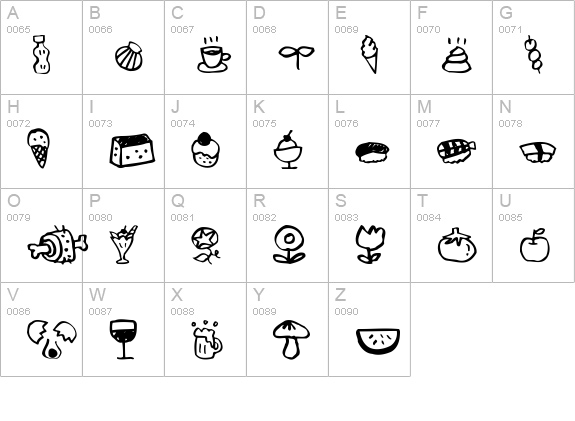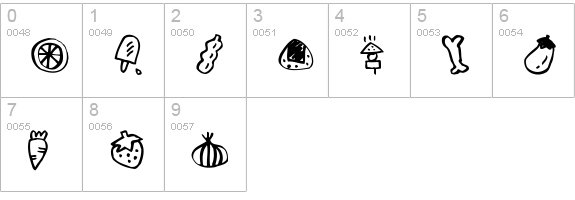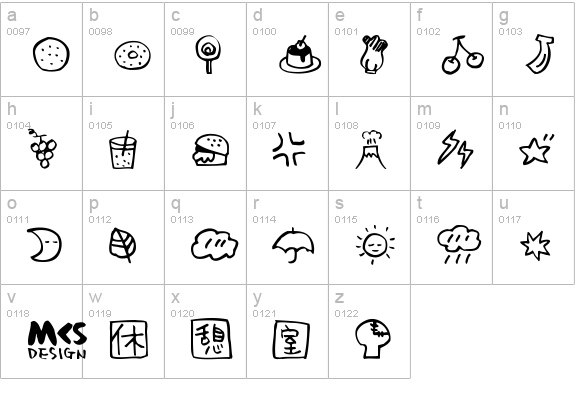
Holiday-illustB Font Details
Holiday-illustB font is a charming and playful typeface that is perfect for adding a touch of whimsy to your designs. With its festive and decorative style, this font is ideal for creating eye-catching holiday-themed projects such as greeting cards, invitations, and posters. The Holiday-illustB font features a unique hand-drawn look with intricate details and flourishes that give it a fun and festive vibe. Best of all, this delightful font is available for free download at FontsMarket.com. Whether you're working on a personal project or a professional design, Holiday-illustB font is sure to add a touch of holiday magic to your creations. Download it today and start spreading cheer with this charming and whimsical typeface.